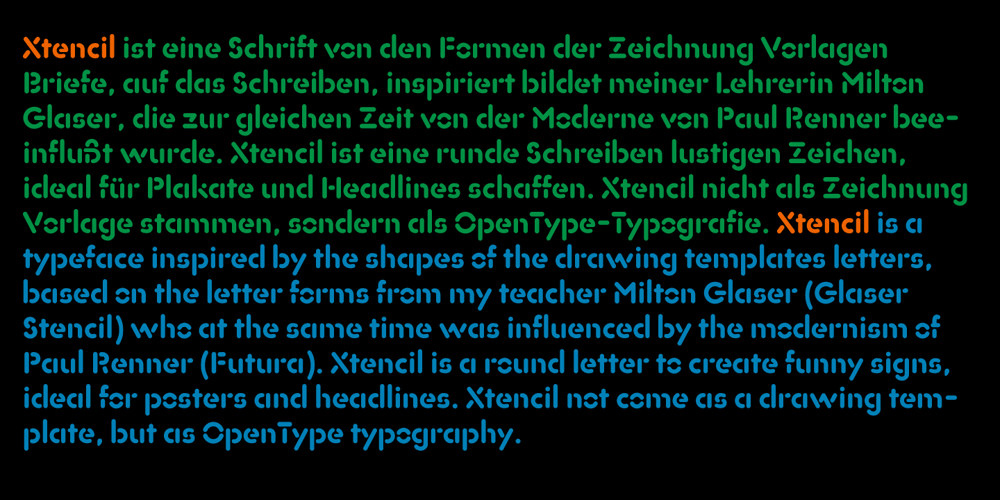
Xtencil lc Font Family was designed by John Moore and published by John Moore Type Foundry. Xtencil lc contains 1 styles and family package options. Xtencil is a typeface inspired by the shapes of the drawing templates letters, based on the letter forms from my teacher Milton Glaser who at the same time was influenced by the modernism of Paul Renner. Xtencil is a round letter to create funny signs, ideal for posters and headlines. Xtencil not come as a drawing template, but as OpenType typography.